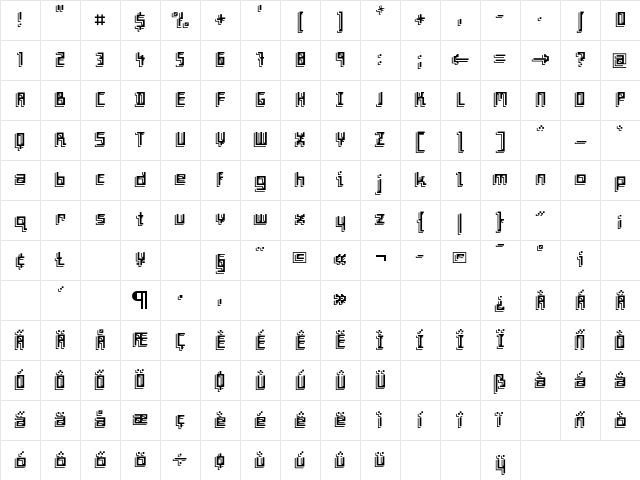
F2FFrontpageFour LT Std Regular
Foundry: Linotype Library GmbH
Designer: Alexander Branczyk
Design Context for F2FFrontpageFour LT Std
F2FFrontpageFour LT Std is a composed and adaptable typeface that performs quietly and consistently across a wide range of design contexts. Its slender proportions lend an understated elegance to any composition.